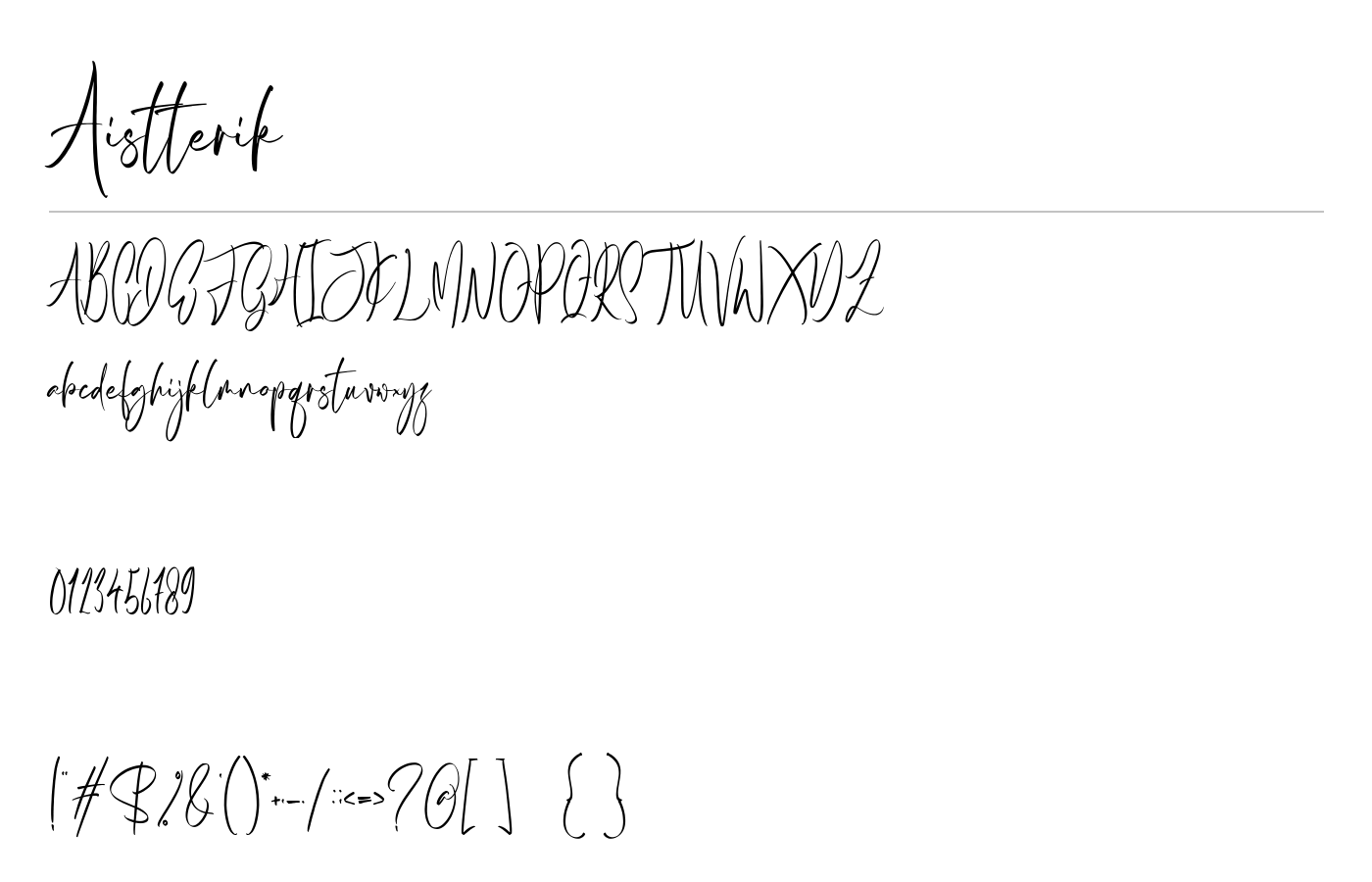
Aistterik is a delicate, handwritten script font with tall, slender letterforms and a whimsical, elegant flow. Its light weight and graceful strokes give it a personal, artistic feel, making it ideal for creative branding, invitations, and stylish editorial projects where a unique, sophisticated touch is desired. This font shines in designs that seek a refined yet casual handwriting aesthetic.
Aistterik Font
About Aistterik Font
| Font family | Aistterik Font |
| Designer | MissinklabStudio |